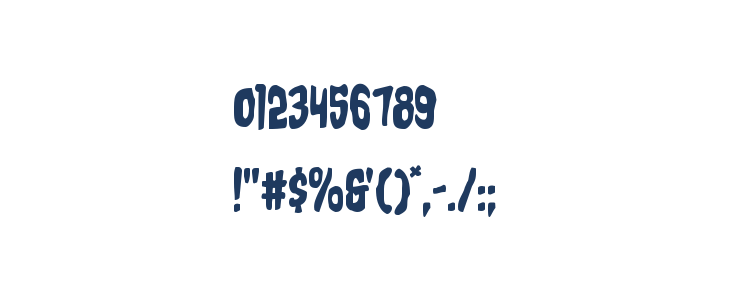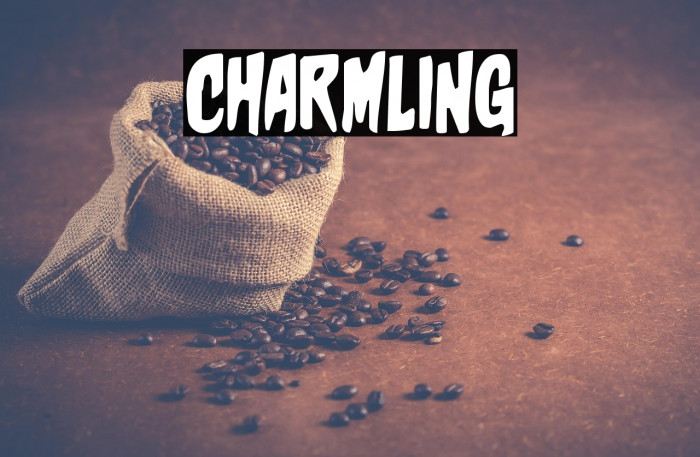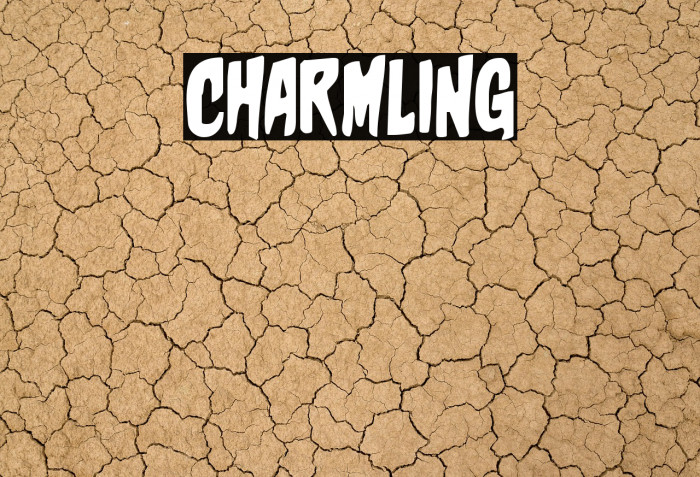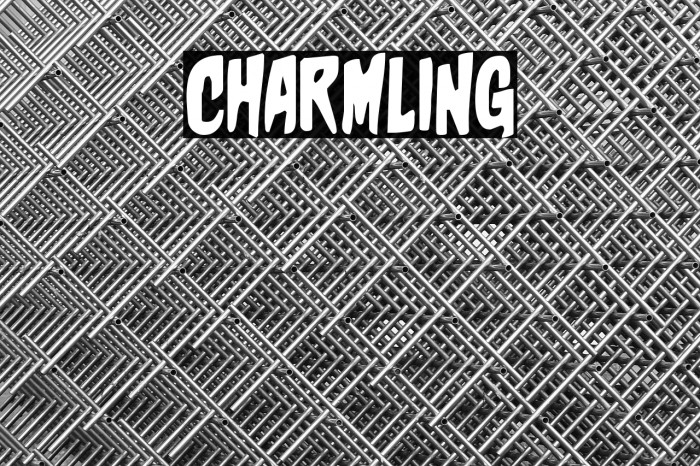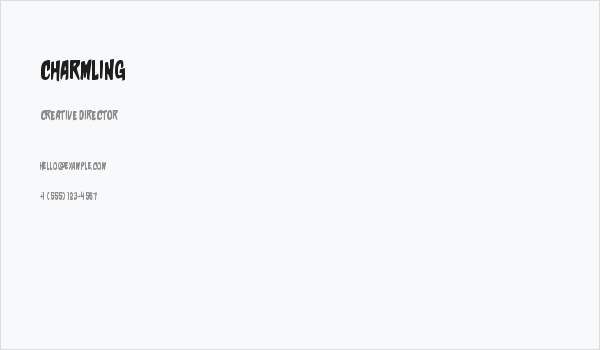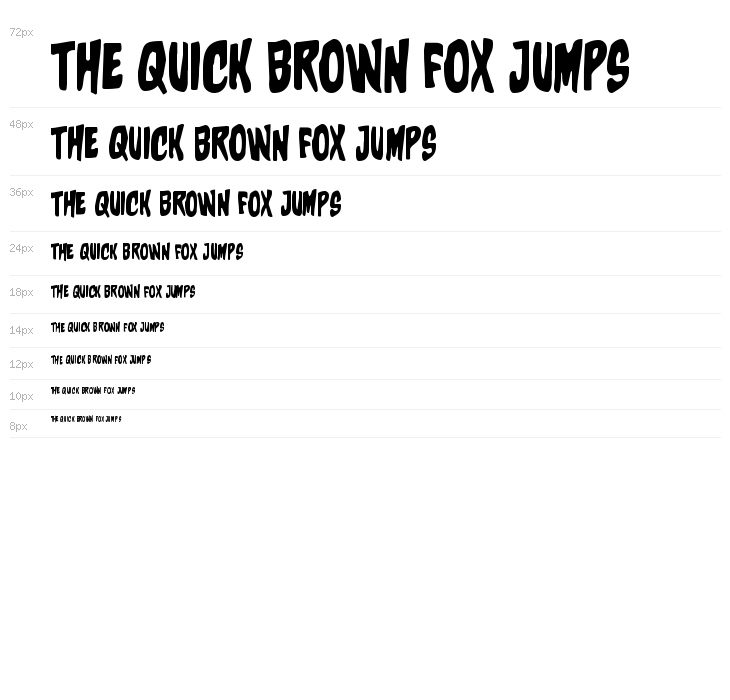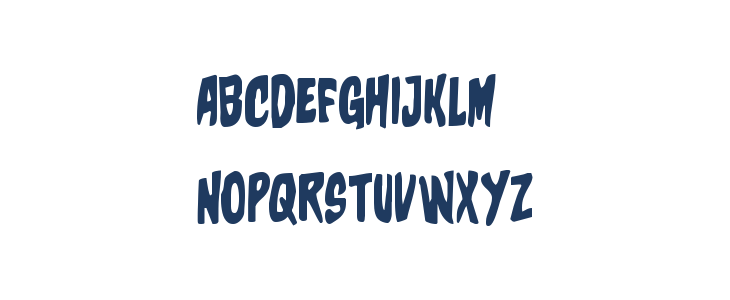
Charmling Font
Charmling Description
This font exhibits a playful and bold style, characterized by its thick, uneven strokes and slightly irregular letterforms. The uppercase and lowercase letters maintain a consistent, whimsical appearance, making it ideal for projects that require a fun and informal touch. The numbers and special characters follow the same design ethos, ensuring a cohesive look across all elements. Its unique style is reminiscent of hand-drawn lettering, adding a personal and approachable feel to any design.
CHARMLING UPPERCASE
CHARMLING LOWERCASE
CHARMLING OTHER CHARS
| Overall Style | Playful, Hand-drawn |
| Proposed Projects | Ideal for children's books, playful branding, posters, and greeting cards. |